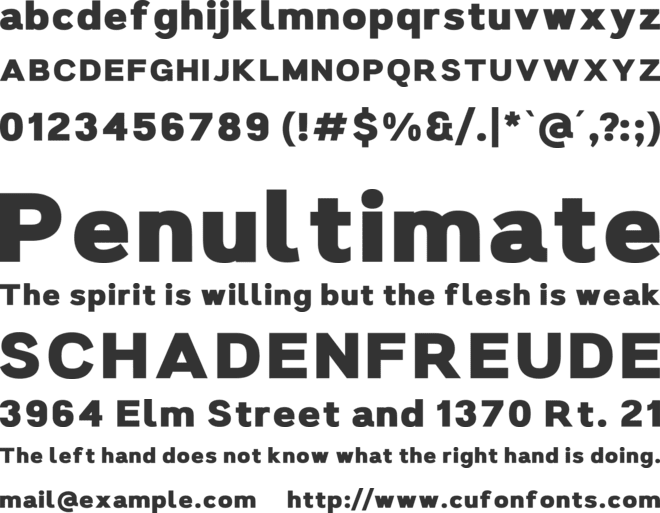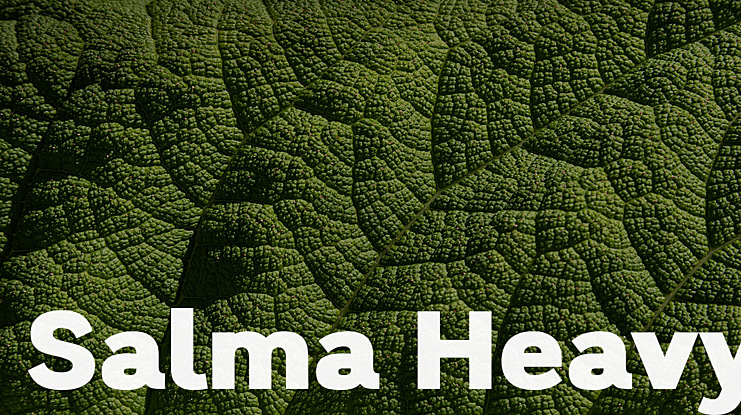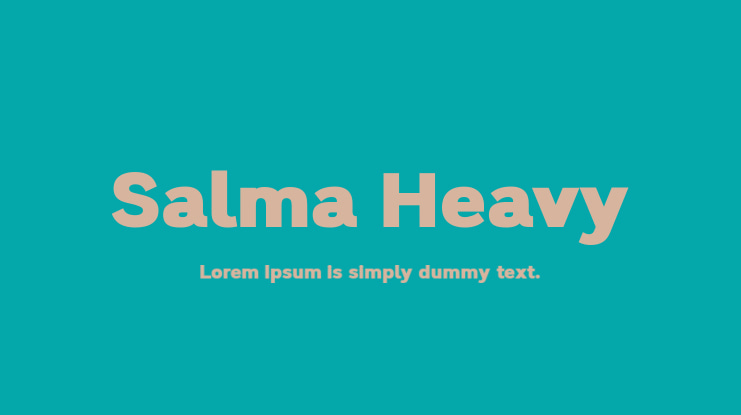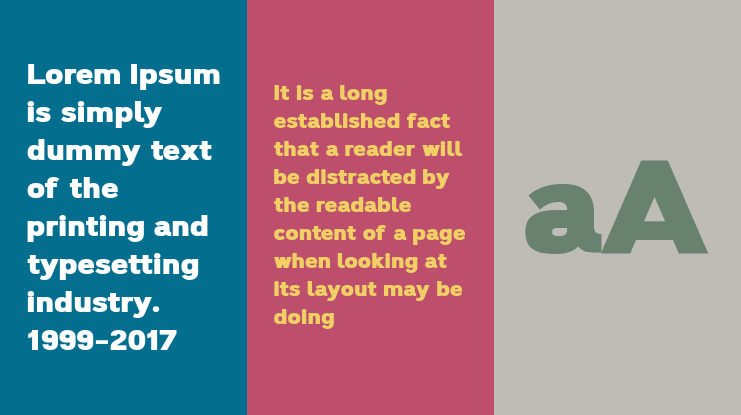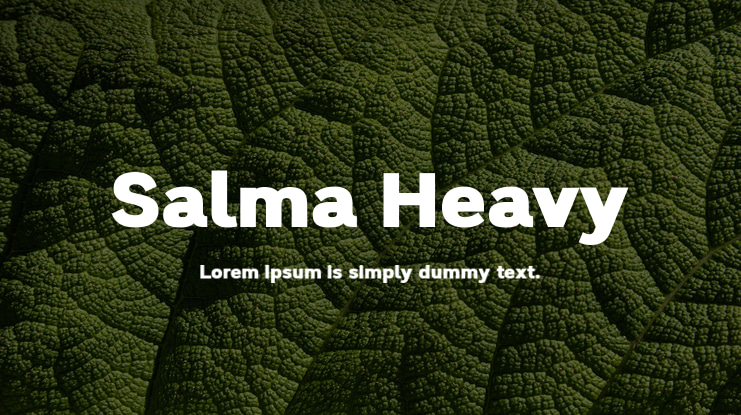
Salma Alfasans is a modern sans serif font, created on February 25, 2021. The main inspiration for this font is its modern geometry and bold design, but looks elegant and smooth.
This font is well-crafted and has almost no contrast at all. The advantage of the Salma Alfasans font is that it is very appropriate when used as a heading, but also looks good when used as body text.
With many weight options, you can freely adjust the design scenario based on your needs. When it was first released and about a month later, Salma Alfasans gave away 2 of the 18 font families for free; Light and Light Italic. The good news is, you can use both of them for commercial and non-commercial projects.